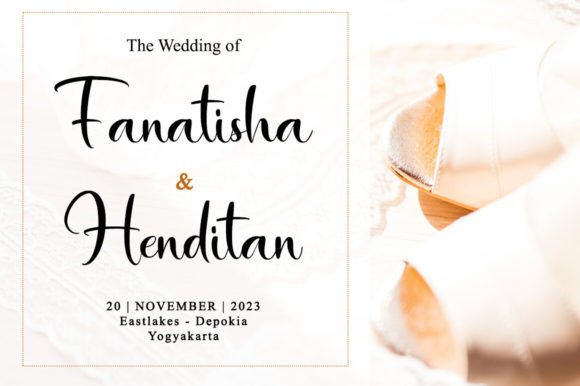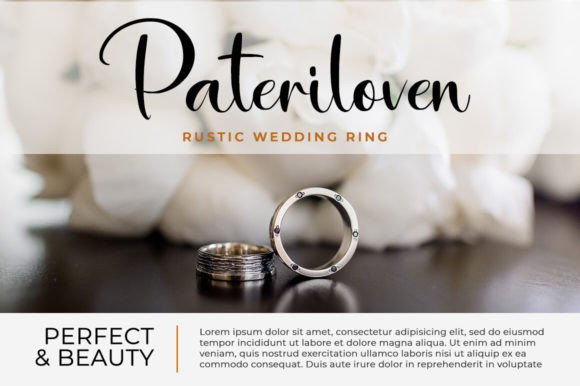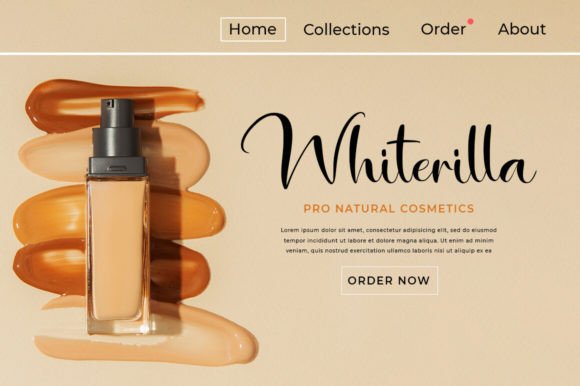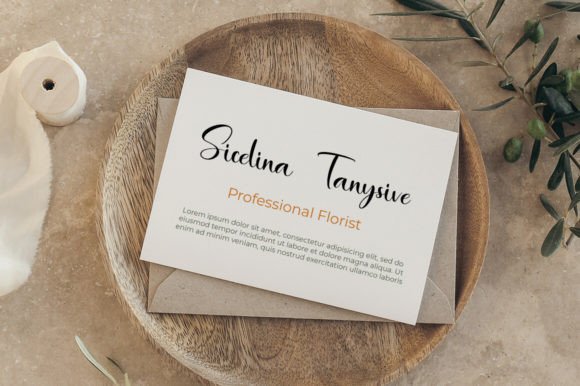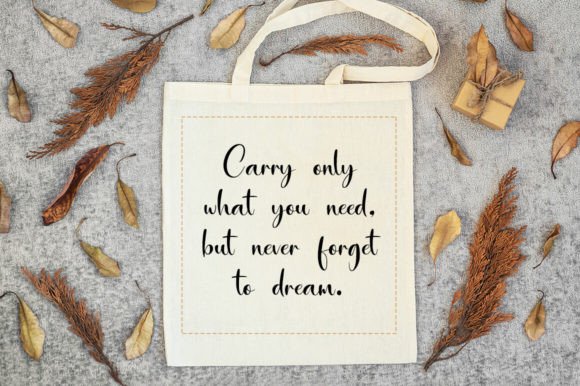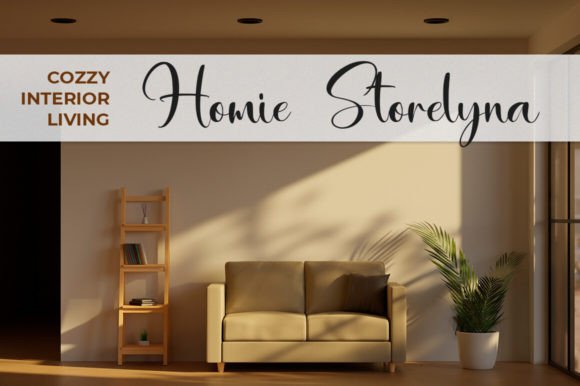
Introduction to Malovetine Font
As you sit in front of your computer, staring at a blank canvas, you know the feeling of needing the perfect design resource to bring your creative project to life. You’ve spent hours searching for that one special element that will elevate your work from good to great. That’s where the Malovetine Font comes in – a stunning script font that adds a touch of elegance and sophistication to any design.
The Malovetine Font is more than just a pretty face; it’s a valuable tool for designers who demand high quality and versatility. With its transparent background and seamless integration with popular design software like Adobe Illustrator and Photoshop, you can trust that your design will look its best, whether you’re working on a logo, invitation, or social media post.
In this article, we’ll dive deeper into the features and benefits of the Malovetine Font, and explore why it’s a must-have for any designer looking to take their creative project to the next level.
Key Features of Malovetine Font
- Transparent background, making it ideal for use on various design resources and backgrounds.
- Designed with a modern aesthetic, making it perfect for contemporary design projects.
Honest Review: Malovetine Font
I recently had the chance to work with the Malovetine Font, a high-quality design resource that’s perfect for creative projects. The moment I downloaded it, I was impressed by the transparent background, making it super easy to use in various design applications.
What works well: ✨ The font has a unique, elegant design that adds a touch of sophistication to any text. The character set is extensive, making it suitable for a wide range of creative projects. I also appreciated the fact that it’s available for free download, making it an excellent choice for designers on a budget.
Limitations: ⚠️ While the font is high-quality, I did notice that it’s not as versatile as some other fonts in terms of font weights and styles. Additionally, the free version may not include all the features and font variants that the paid version offers.
Overall, I’m impressed with the Malovetine Font. It’s a solid choice for designers looking for a high-quality, elegant font for their creative projects. With its transparent background and extensive character set, it’s a great addition to any design resource library.
Pros and Cons:
- Unique, elegant design
- Extensive character set
- Not as versatile as some other fonts
Tips for Getting the Most Out of Malovetine Font
Experiment with different font sizes, colors, and combinations to achieve a unique look.
Use Malovetine Font to create eye-catching headings, titles, or captions.
Malovetine Font is perfect for:
Designing social media graphics, posters, or flyers.
Creating presentations, reports, or resumes.
Adding a touch of elegance to wedding invitations, birthday cards, or party decorations.